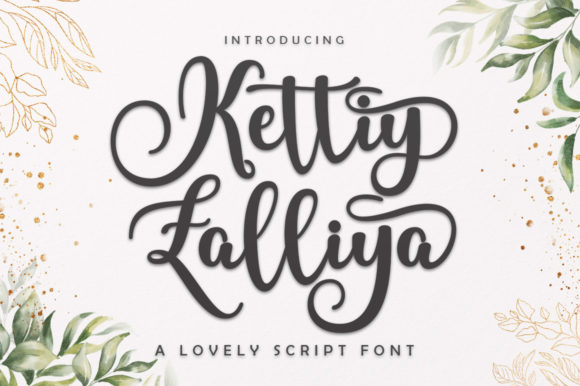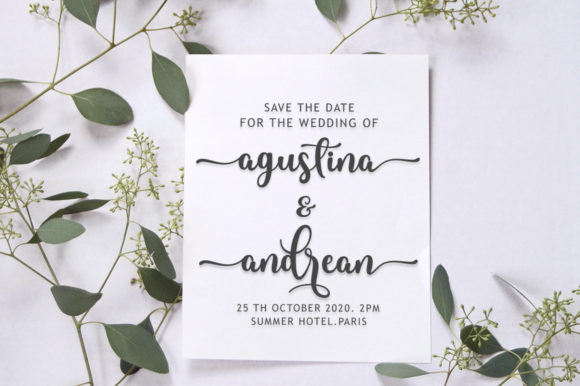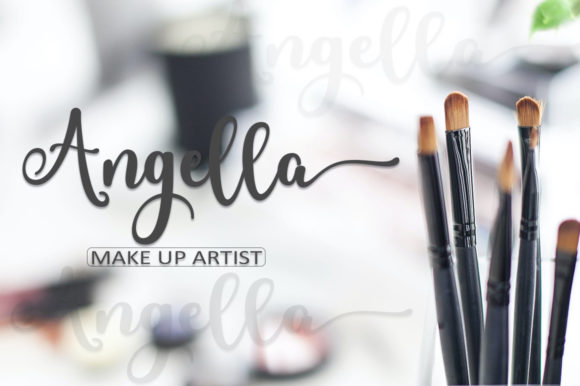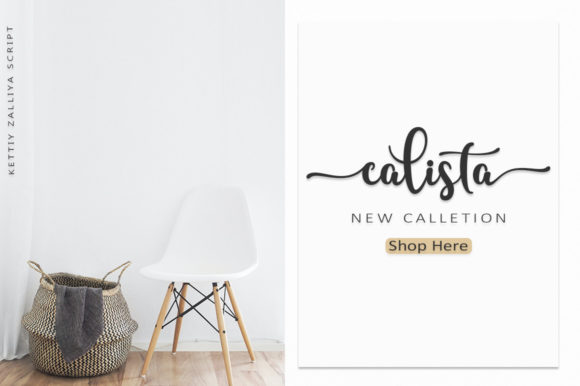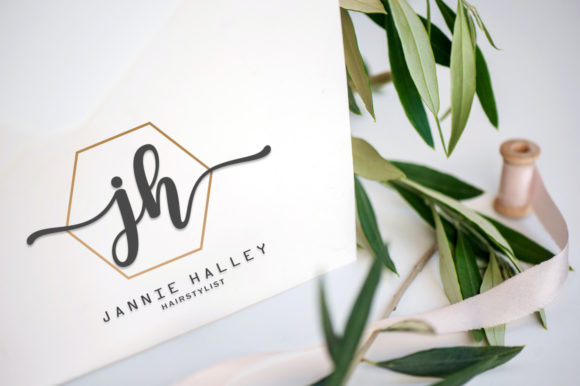
About Kettiy Zalliya Script Font
Kettiy Zalliya Script is a lovely script font featuring charming, playful characters that seem to dance along the baseline. This font is PUA encoded which means you can access all glyphs and swashes with ease!